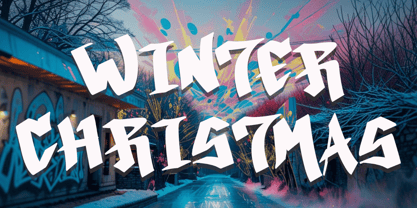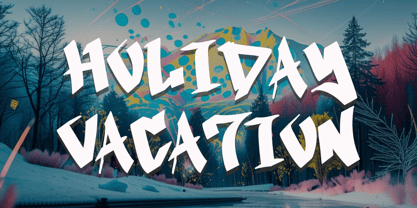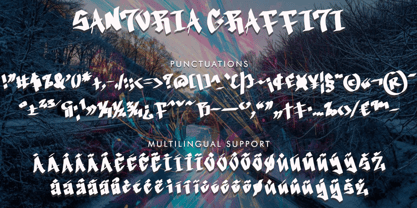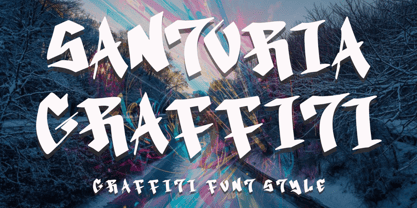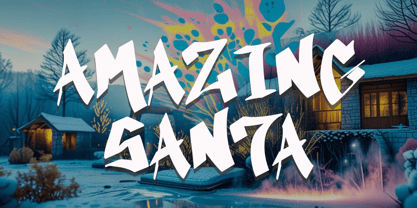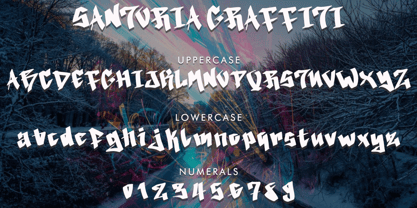
Santoria Graffiti
by Yoga Letter
The Santoria Graffiti Font Family was designed by Isroni Yoga Prasetya and published by Yoga Letter. Santoria Graffiti contains 1 styles. More about this family
"Santoria Graffiti" is a unique and modern graffiti font. It features uppercase and lowercase letters, numerals, punctuation, and multilingual support. It's perfect for Christmas, winter, spring, fall, and autumn, graffiti, urban fonts, street fonts, logos, stickers, posters, prints, banners, branding, summer logos, tattoos, movie titles, and more.
Designers: Isroni Yoga Prasetya
Foundry: Yoga Letter